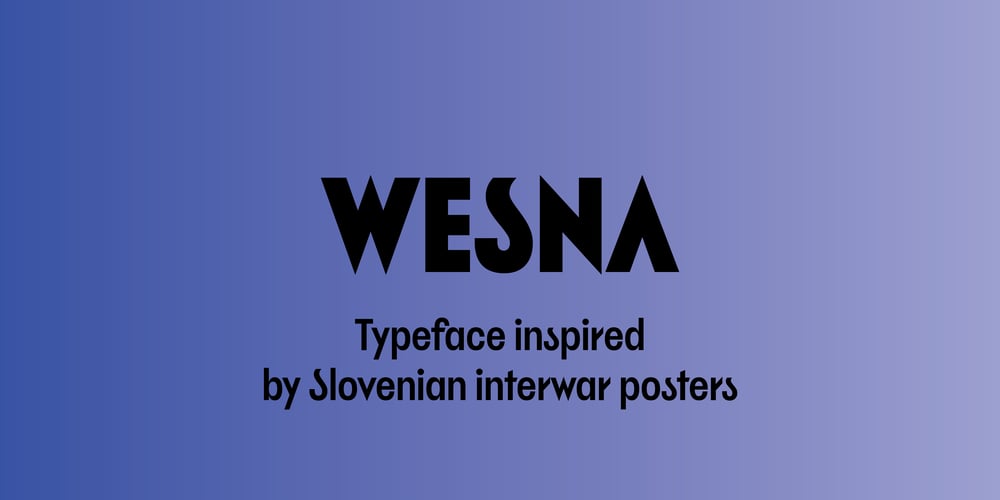
Wesna Font Family was designed by Alja Herlah and published by Type Salon. Wesna contains 2 styles and family package options. Typeface Wesna was created as a reflection of the current state of design whose starting point is rooted in the letterings from the Slovenian posters from the interwar period. Bold strokes, condensed letterforms, sharp stroke joints and unique features are combined in the typeface. Wesna preserves the Slovenian typography heritage and establishes the connection between the past and the present through new digital formation. Available in 3 weights, italics in Latin & Cyrillic.